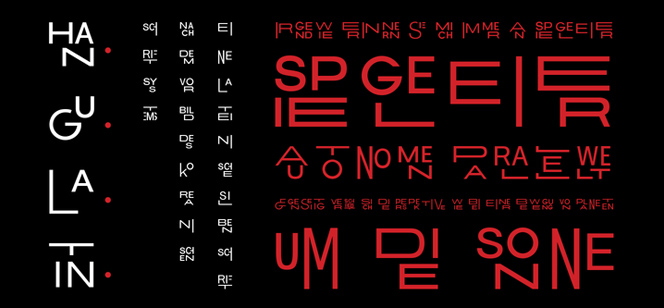
Hangulatin font
In 2012 Anita Jürgeleit – a German type designer, was about to undertake a journey to Korea. For a very trivial reason – fear not to get lost, she decided to study the Korean writing system. What she discovered and learnt fascinated her so much that she decided to experiment by applying the main principles of the Korean writing to the German language with Latin alphabet. The biggest challenge was to group characters to syllables in such manner as to produce intuitively readable and easy to read writing system. Many major challenges arose during the process and many questions had to be answered. How can letters be grouped into syllables, so that a German would be able to read intuitively? Is it possible German syllables that could be very long at times to be arranged in a square? How many syllables make the font readable in German? And, finally, will such a font be useful at all?
Luckily, after an exciting journey into linguistics and the history of writing systems, Anita Jürgeleit was able to find the answers. The result is Hangulatin font – an experimental font family which contains more than 750 glyphs and 3000 syllables and is surprisingly easy to read.
As might be expected, recognition for such an interesting project wasn’t late to arrive – Hangulatin font was a nominated finalist at Hiiibrand Typography Award 2013 – Golden nail in the talent competition of the ADC 2014.
Designer: Anita Jürgeleit
Publisher: URW++